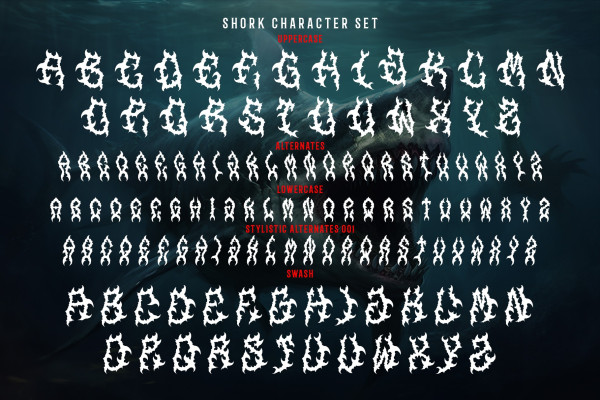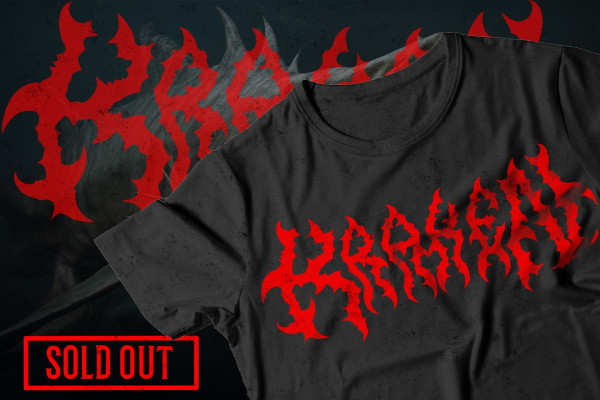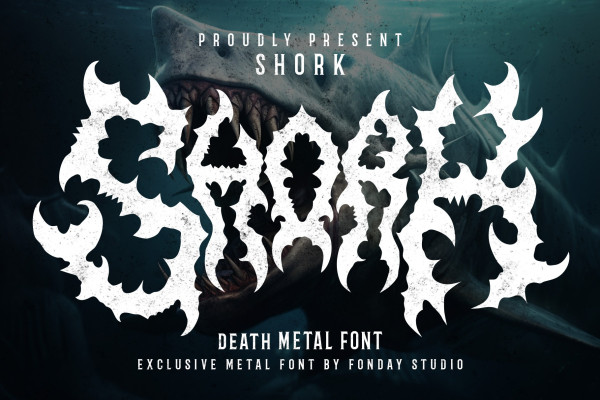
Shork Font
Shork Font, is perfect for creating designs that embody the energy and intensity of metal music, while adding a touch of ferociousness with a shark-inspired twist.
Shork’s unique style will make your designs stand out, with its bold shapes and distinctive shark-themed elements. Whether you’re creating album covers, merchandise, or promoting a metal concert with a shark theme, Shork will give your designs a memorable look that captures the spirit of metal music and the awe-inspiring presence of sharks.